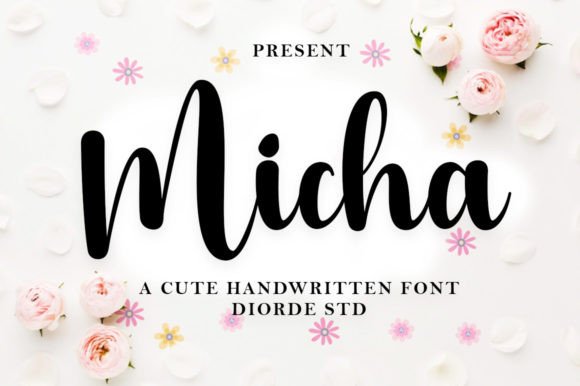
Welcome to the world of Micha, a captivating script font family woven with elegance and charm. This masterpiece is the brainchild of Diorde Studio, renowned for crafting fonts that stir emotions and leave an indelible mark. Micha is no exception; it's a font that dances across your screen, captivating your senses with its delicate strokes and alluring curves.
Unleash your creativity and let Micha guide you through a symphony of design possibilities. Whether you're crafting heartfelt greeting cards or bold headlines, Micha adds a touch of sophistication and allure to every project. Its versatility extends far beyond the ordinary; it's the perfect companion for wedding invitations and Christmas cards, adding a touch of magic to your special moments.
Create stunning birthday invitations that reflect the joy and excitement of the day, or elevate your quotes and stickers with a touch of elegance. Micha transforms ordinary images into captivating works of art, seamlessly blending into the background or taking center stage, depending on your vision.
With Micha, you'll discover a font that's as enchanting as it is versatile. It's the perfect choice for those seeking a font that speaks to the heart and captures the imagination. Let Micha be your muse, guiding you towards creative heights you never thought possible.